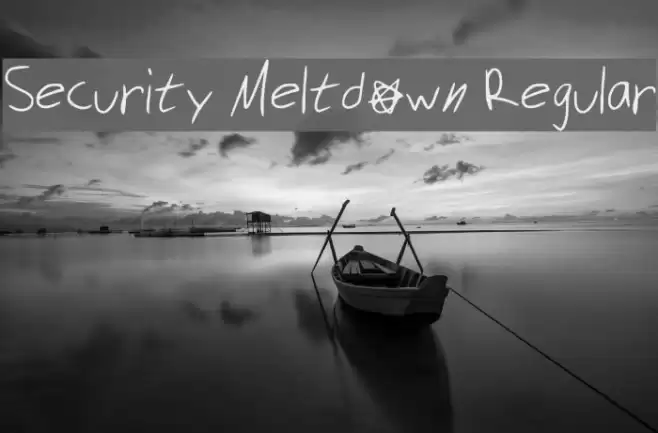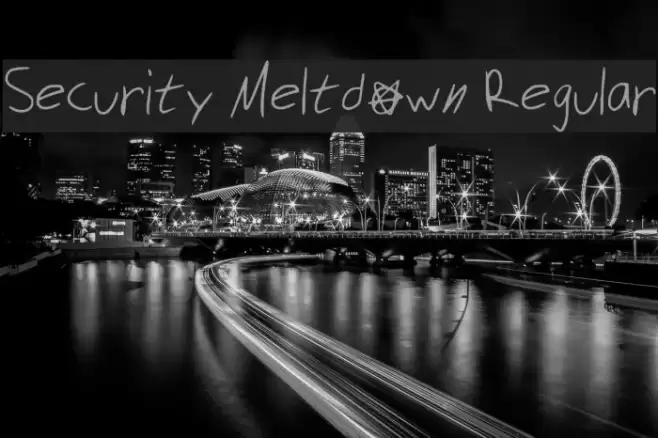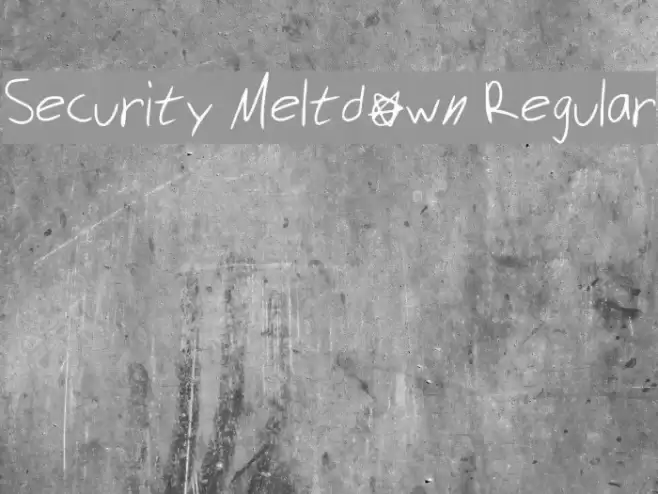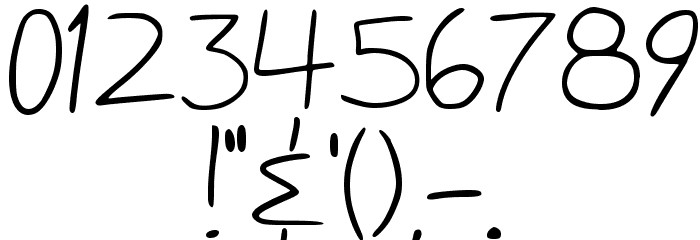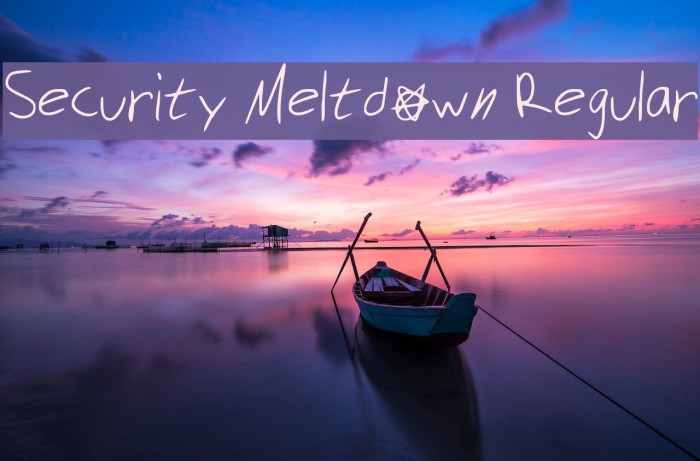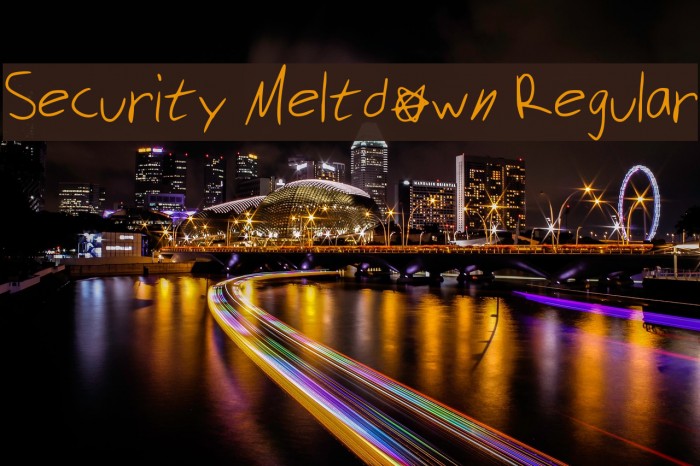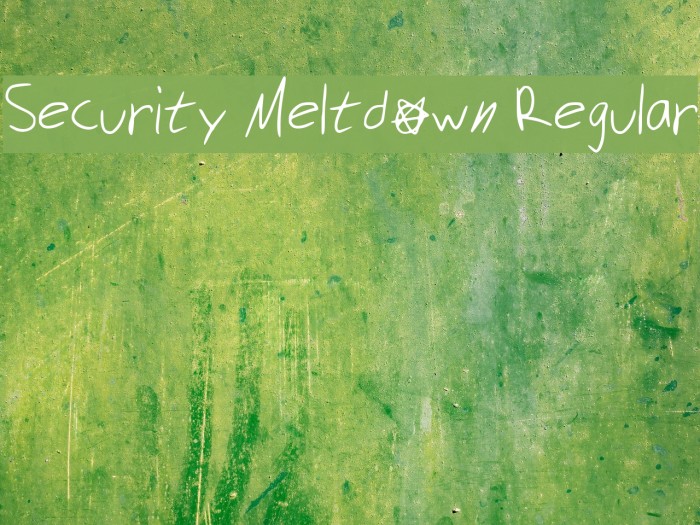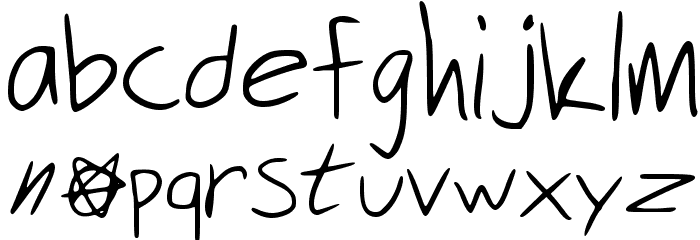
Security Meltdown Regular Font
Security Meltdown Regular Description
This font features a playful and informal handwritten style, characterized by its irregular strokes and casual appearance. The uppercase and lowercase letters exhibit a consistent flow, with some letters featuring unique embellishments, such as the star within the 'O'. The numbers maintain the same whimsical style, ensuring a cohesive look throughout. Special characters are included, adding versatility to the font. The overall design is approachable and friendly, making it suitable for creative and informal applications.
A playful, handwritten font with irregular strokes and a casual style from Uncategorized fonts.
- Proposed Projects: Ideal for children's books, greeting cards, casual invitations, and creative branding projects.
- Overall Style: Casual
- Use Case: Headlines, Creative projects, Informal text